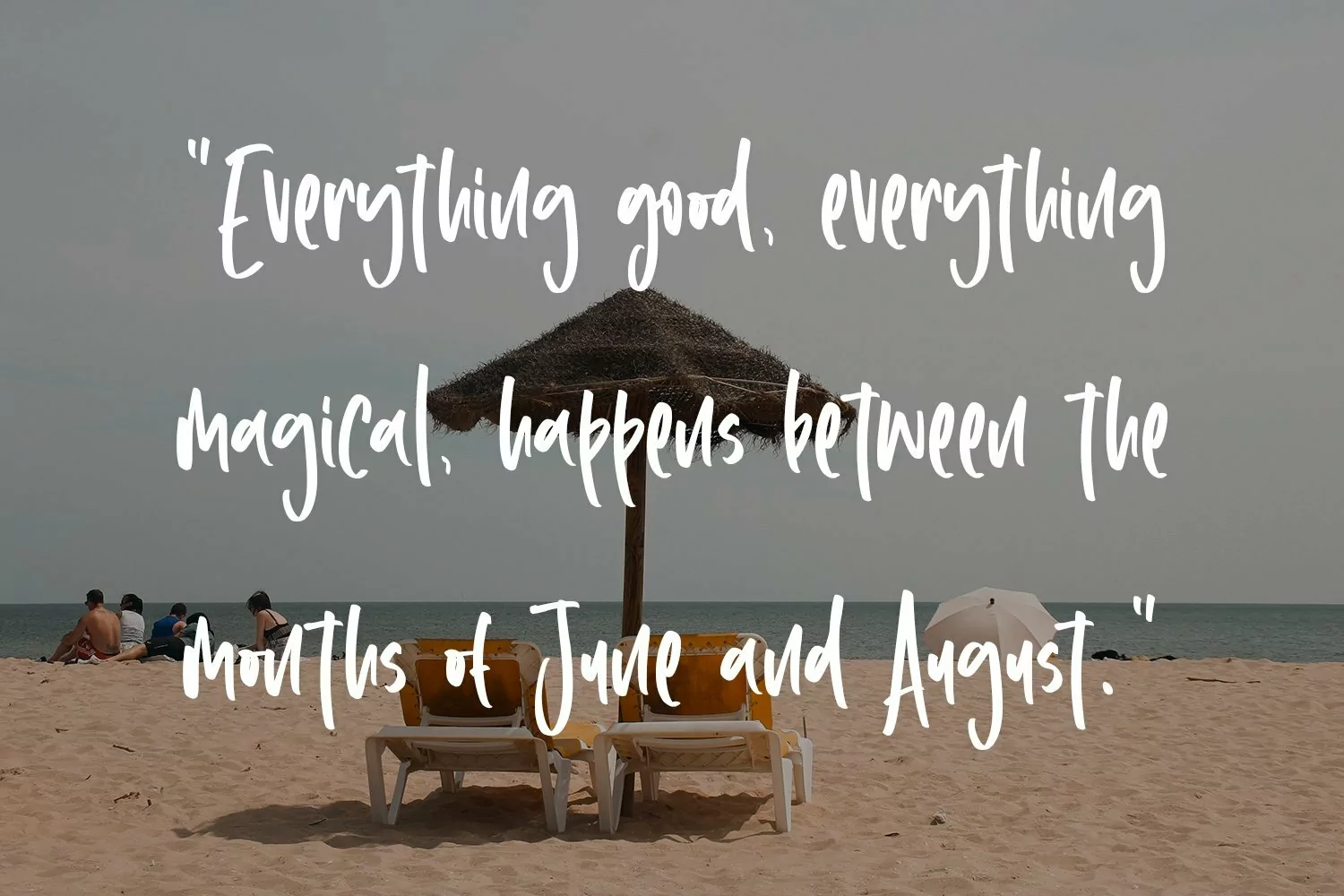
Web Font Youngest Brother - Summer Display Font that has a distinctive character that is very thick and elegant to use
Youngest Brother is a relaxed and flowing Calligraphy Font. Incredibly versatile, this font fits a wide pool of designs, elevating them to the highest levels. Add this font to your favorite creative ideas and notice how it makes them come alive!